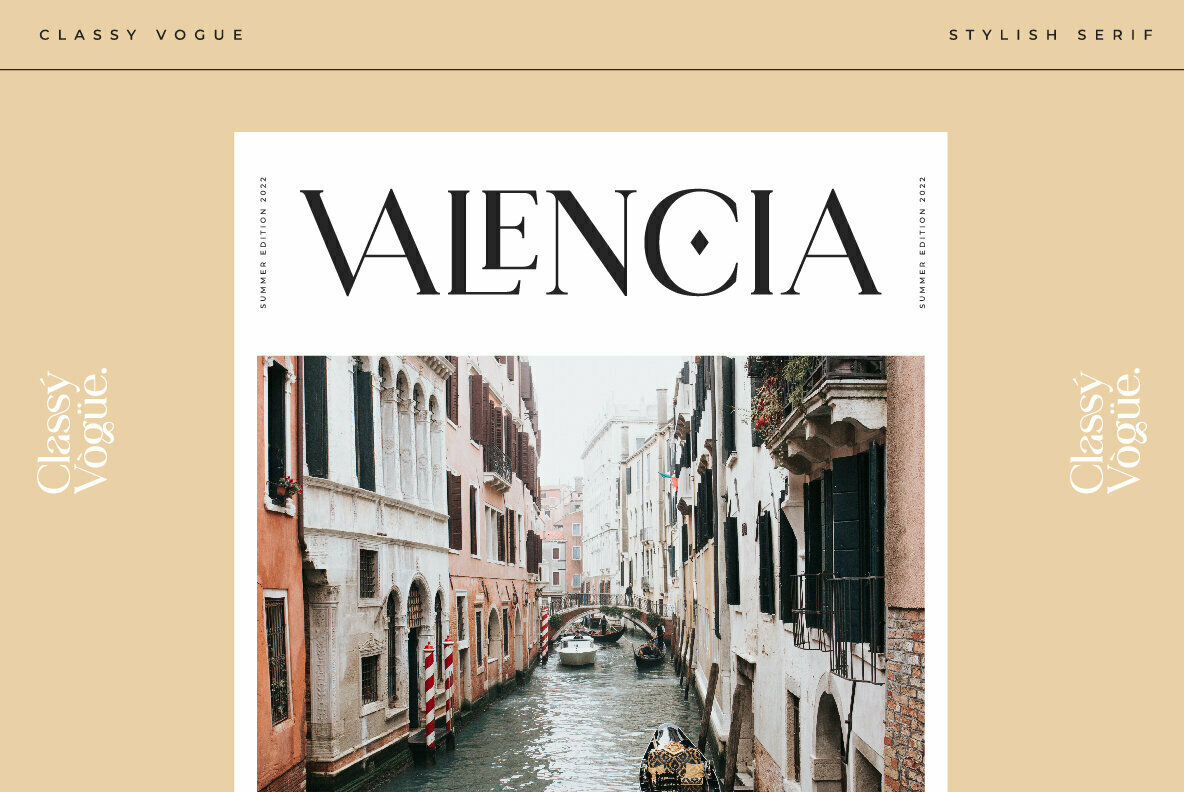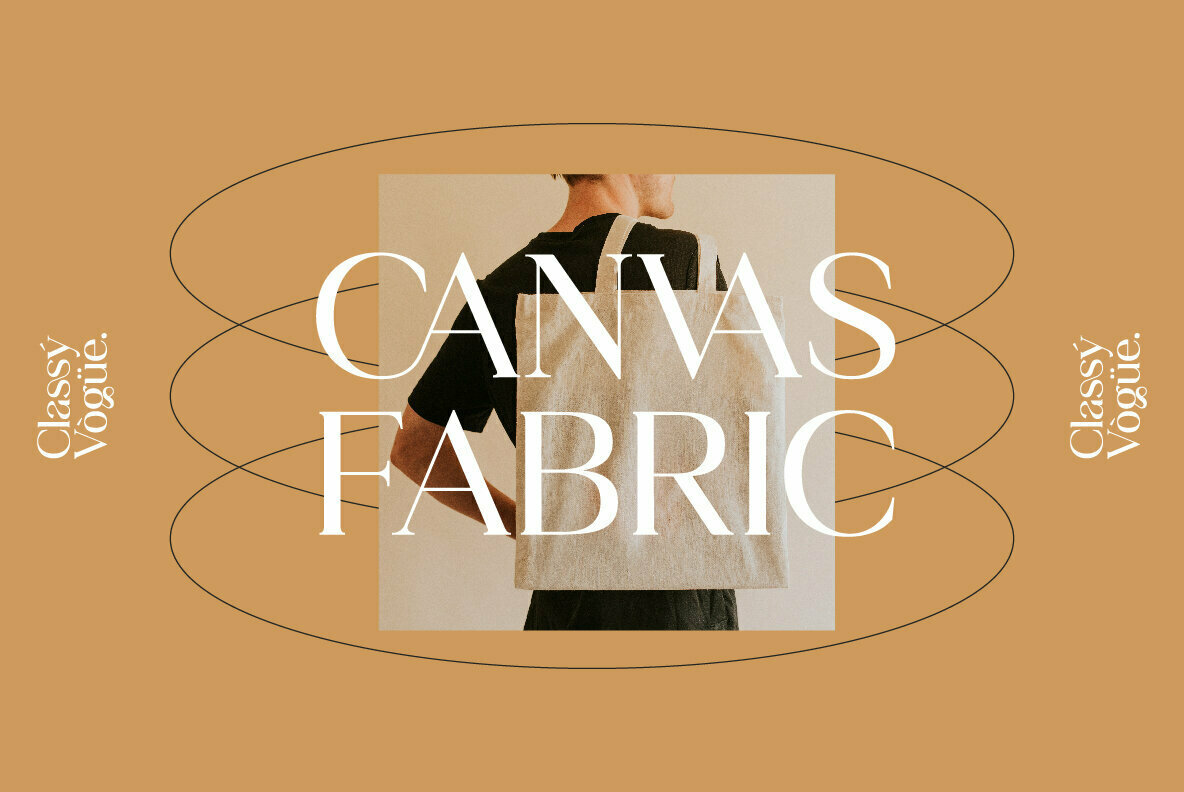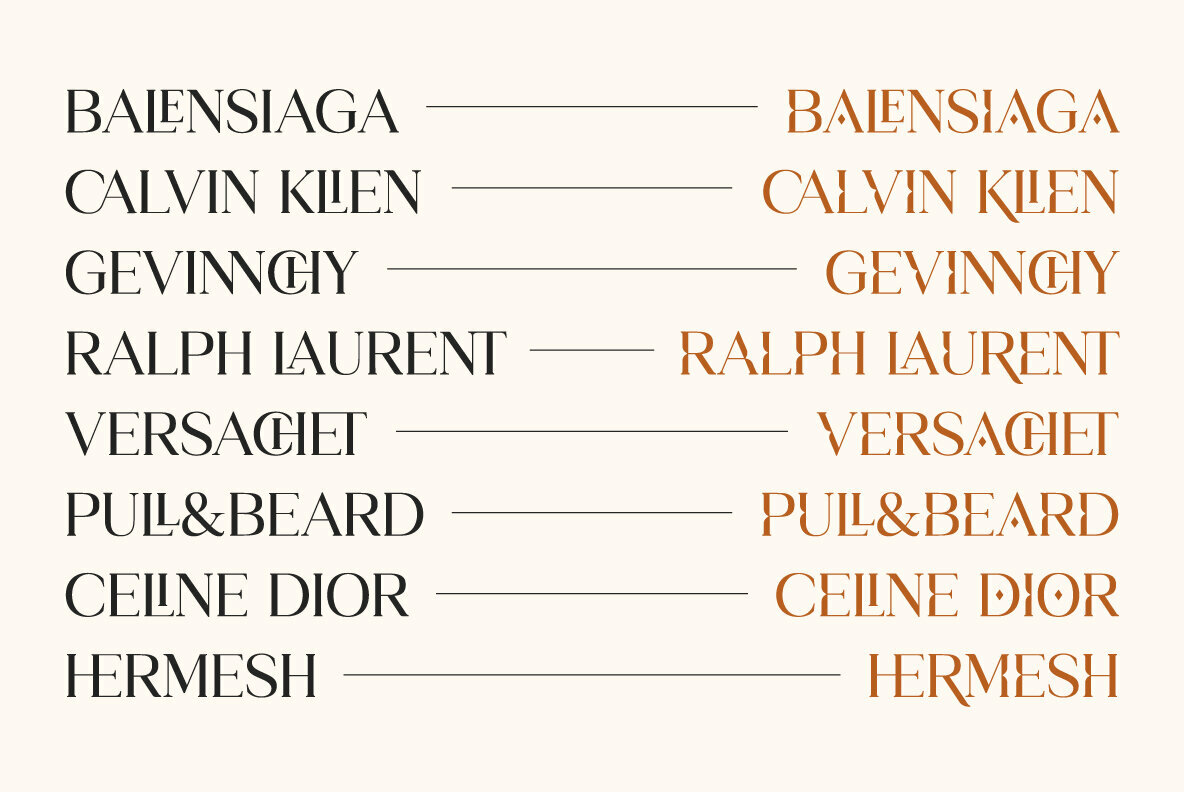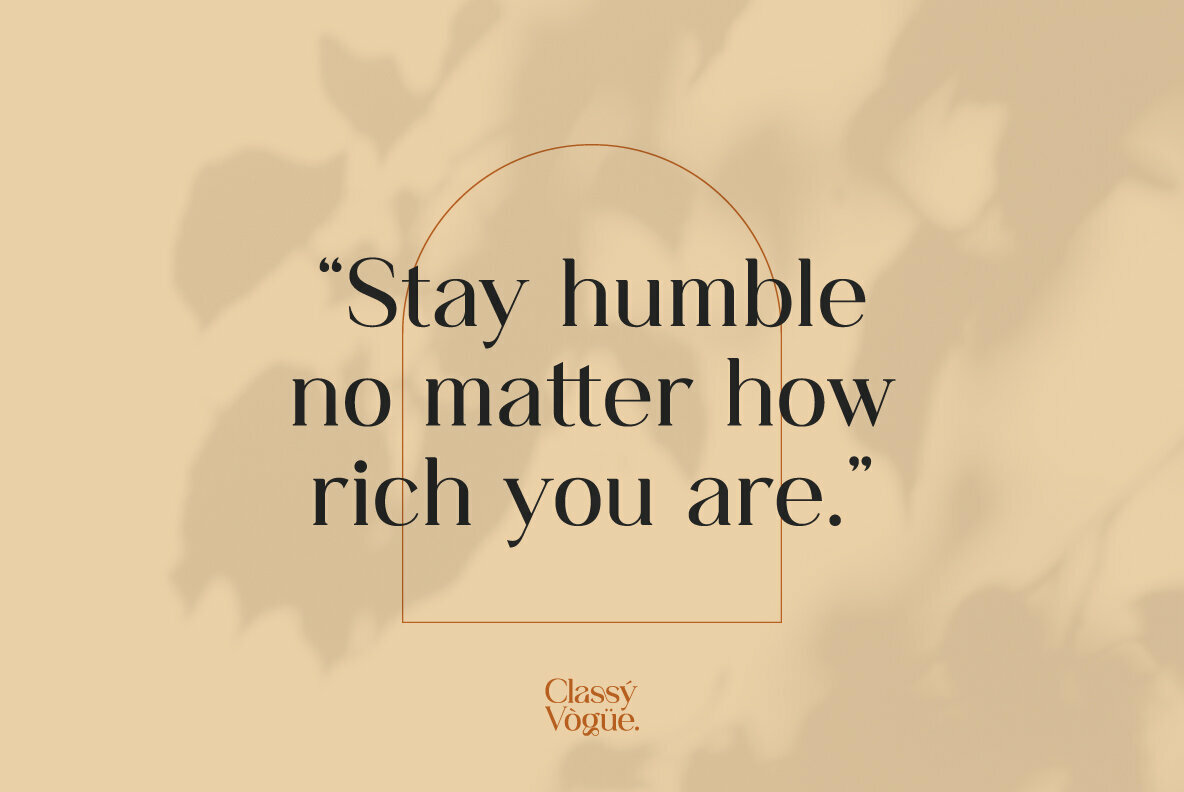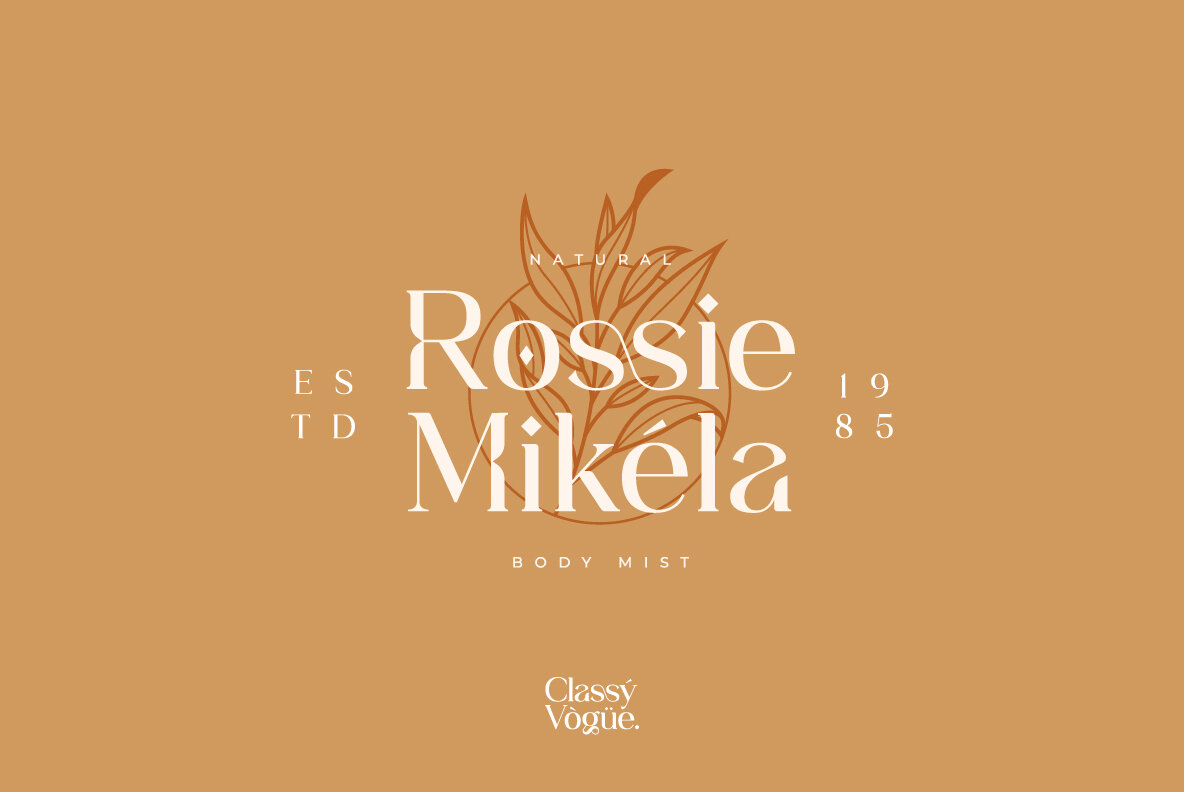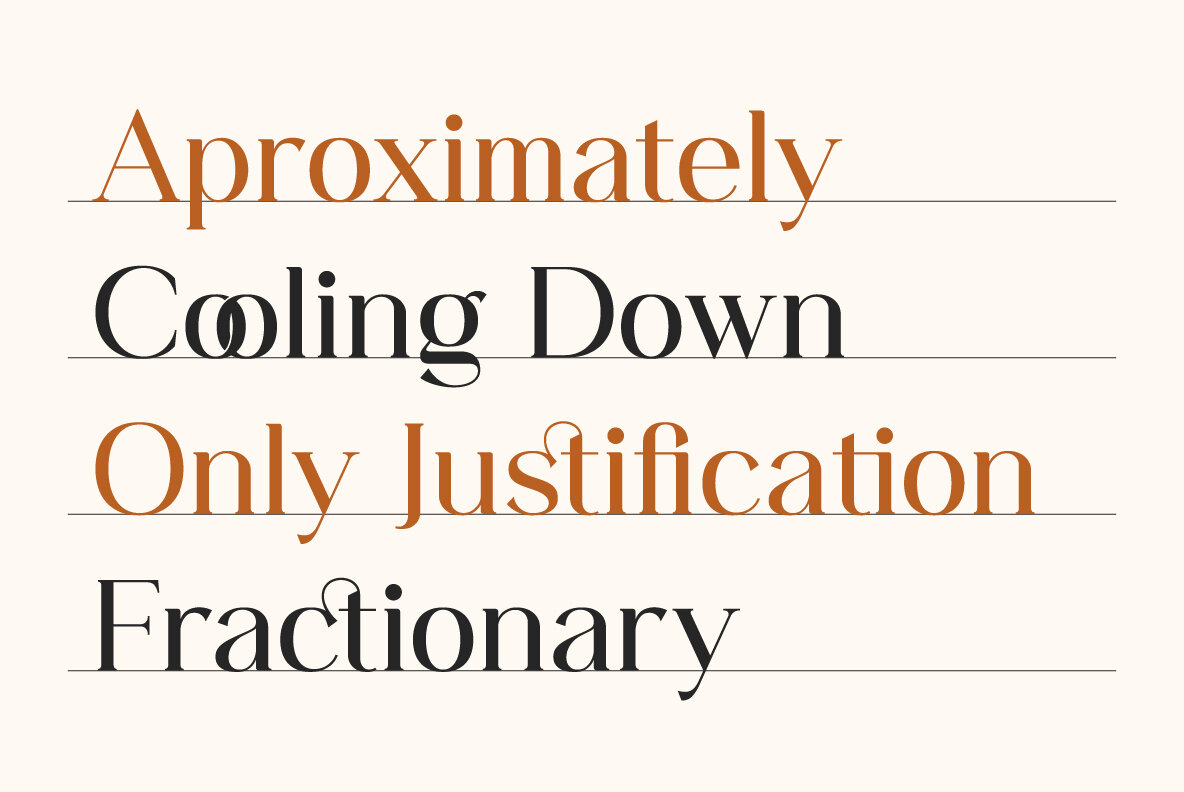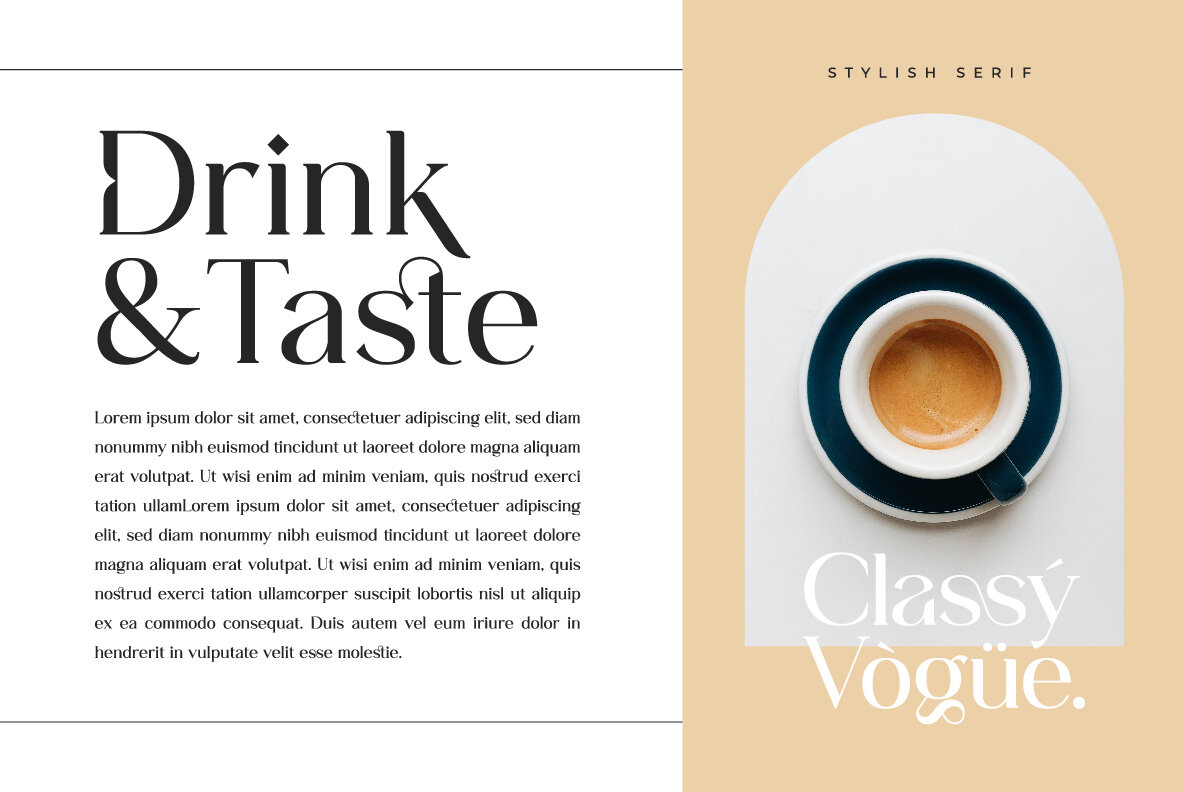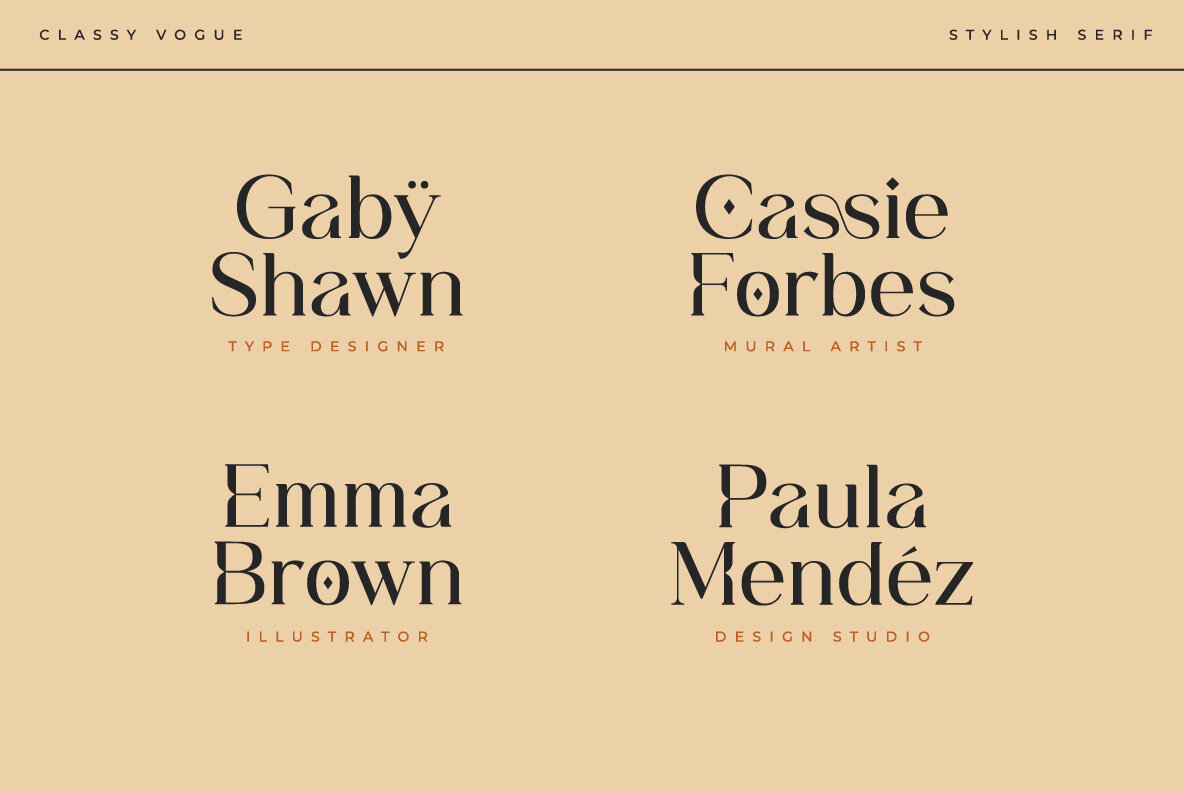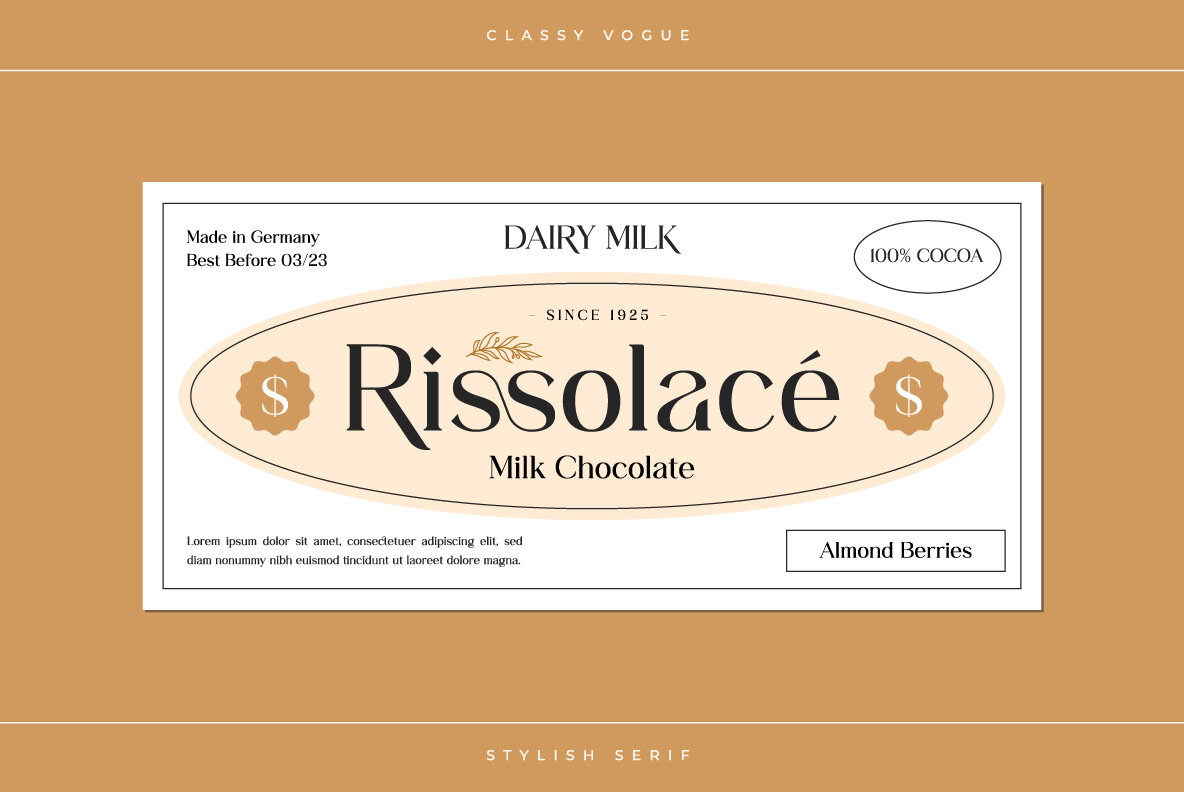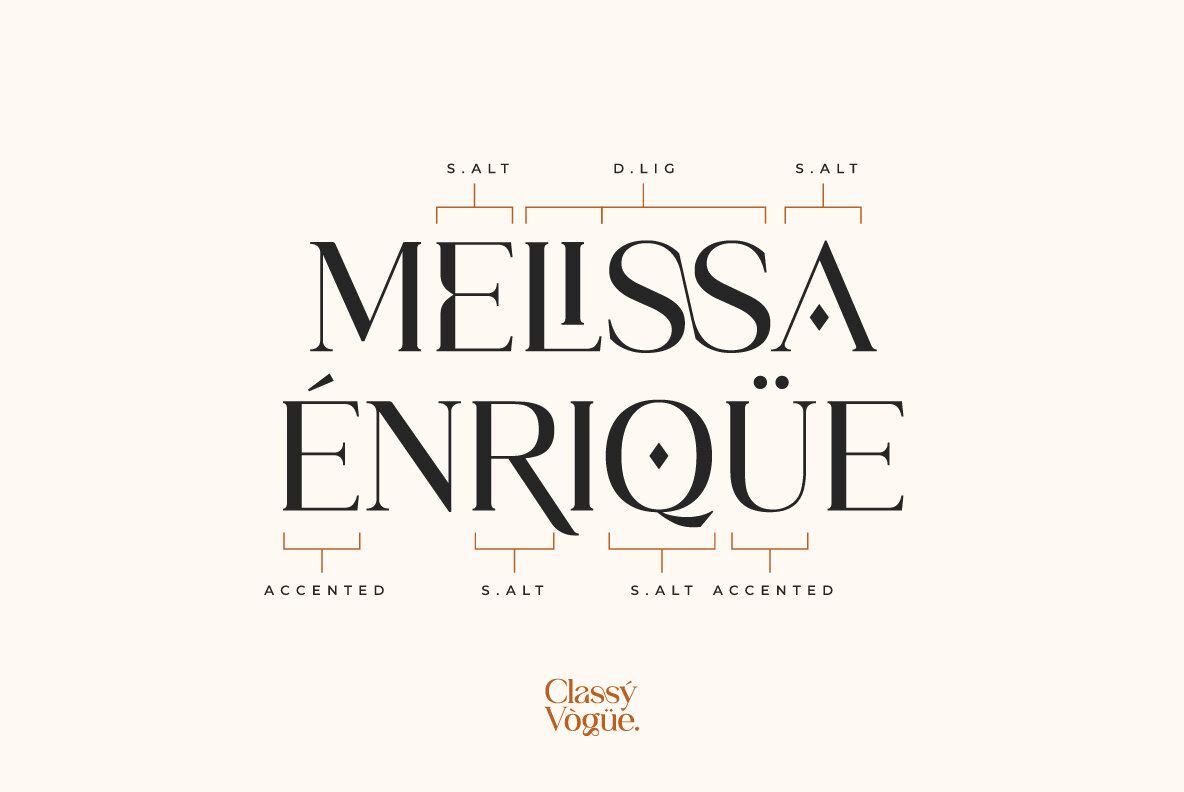
Classy Vogue Font
Classy Vogue
Classy Vogue is the perfect font for when you want to make a statement in style. The display serif design has an elegant, luxury feel that will be sure impress your clients or customers!